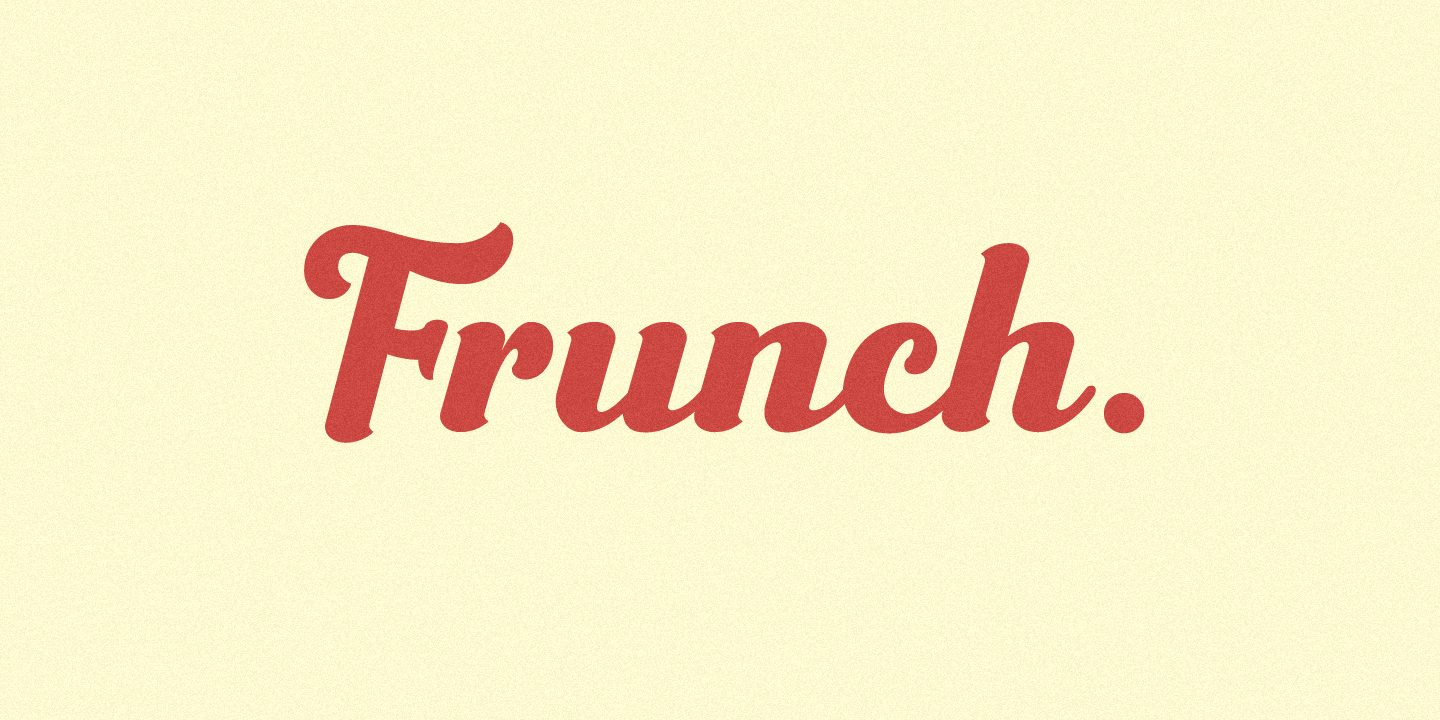
Frunch Font Free Download is a bold and playful typeface that features a modern and funky design. Its rounded edges and geometric structure make it perfect for eye-catching headlines, logos, posters, branding, and creative digital content. The font brings a fun, youthful energy to any project, making it ideal for playful and contemporary designs.
With its strong presence and distinctive style, Frunch Font Free Download is perfect for designs that need to make a bold statement, while still maintaining readability and modern aesthetics.